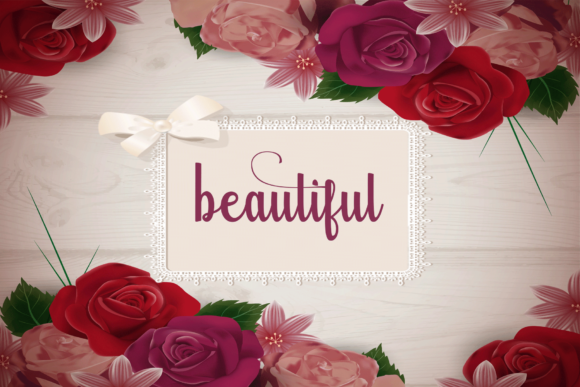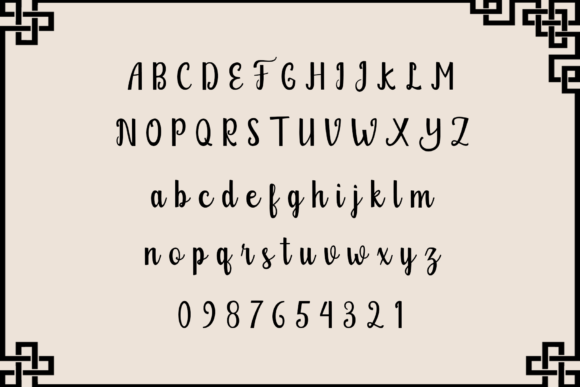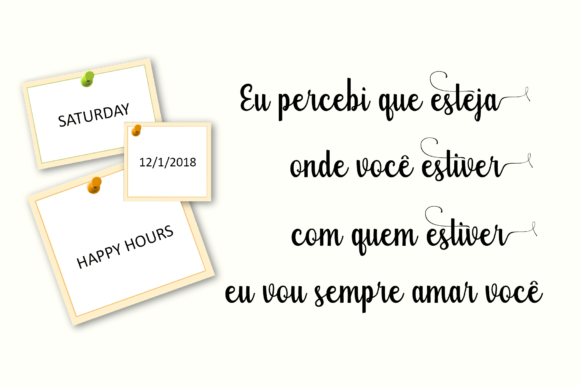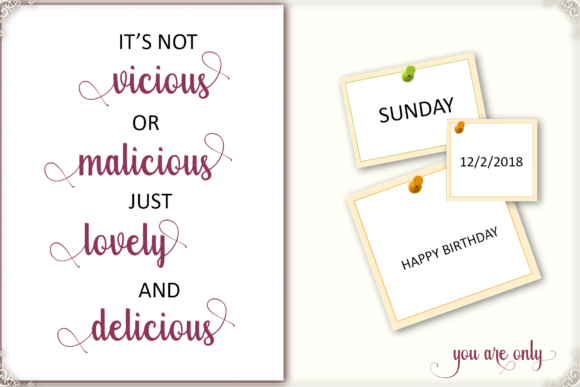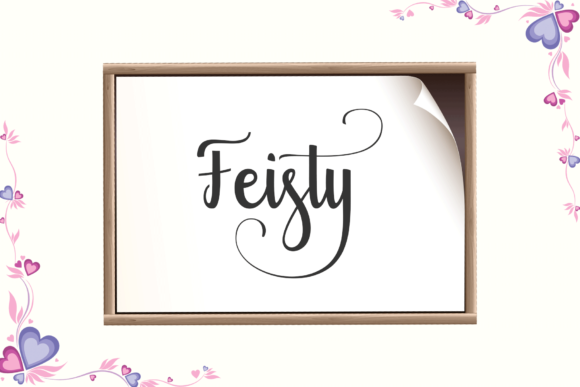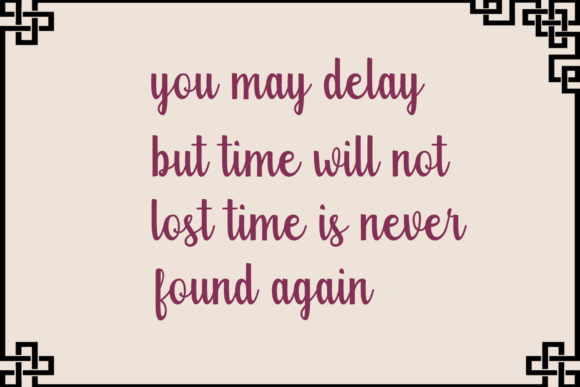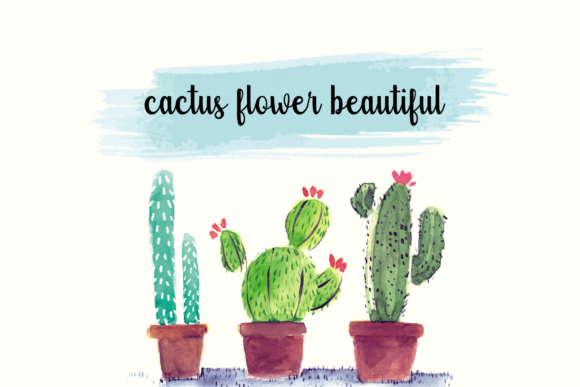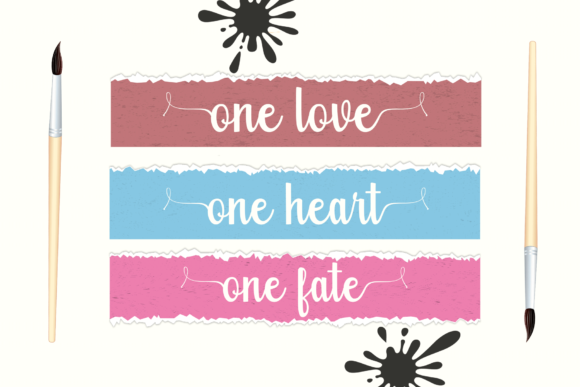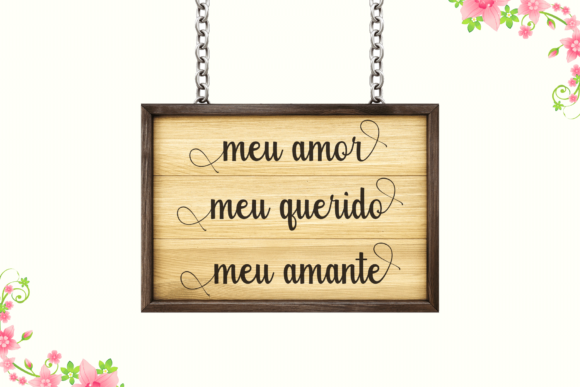
Glitter Font
About Glitter Font
This Glitter is a beautiful script font with endless charm, and will add a romantic feel to your designs.
This bold, yet elegant vintage script is great for things like logos, wedding invitations, signage and posters.